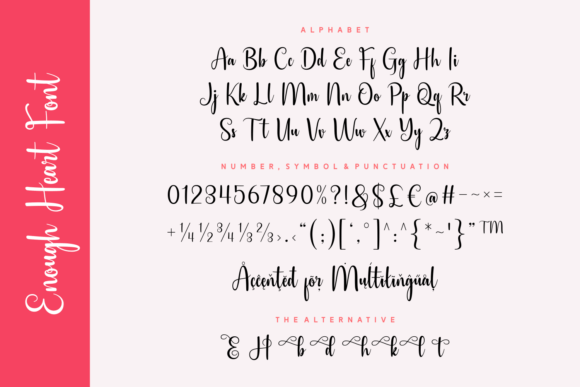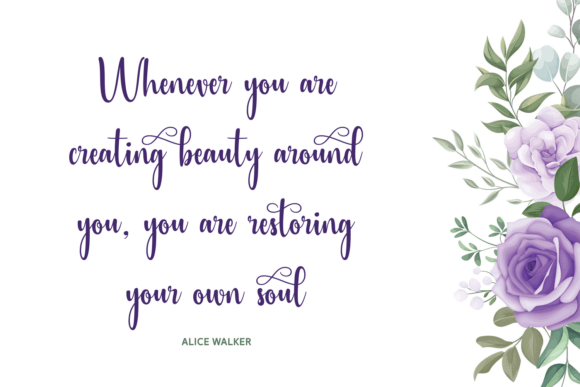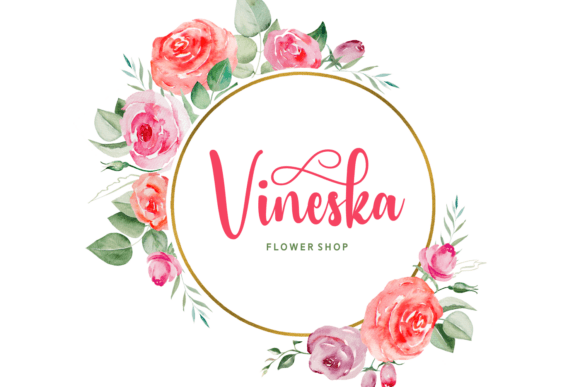
Introducing Enough Heart Font: The Epitome of Elegance and Romance
In the world of typography, few fonts capture the essence of romance and elegance as beautifully as the Enough Heart font. This modern script font is a masterpiece of design, boasting stunning swashes and flowing curves that evoke a sense of sophistication and charm. Whether you’re a designer, crafty DIY enthusiast, or simply someone who appreciates the art of beautiful typography, Enough Heart is sure to captivate your heart.
The Perfect Font for Wedding Designs and Invitations
When it comes to wedding designs, invitations, and other romantic-themed projects, the font you choose can make all the difference. You want something that exudes love, elegance, and refinement. Enough Heart font fits the bill perfectly. Its delicate yet assertive strokes, combined with its beautiful swashes, create a visually stunning effect that’s sure to leave a lasting impression. Whether you’re designing wedding stationery, creating a romantic logo, or crafting a heartfelt greeting card, Enough Heart is the perfect choice.
A Versatile and Graceful Design
One of the standout features of Enough Heart font is its versatility. Its elegant design makes it suitable for a wide range of projects, from branding and advertising to packaging and digital media. The font’s flowing curves and swashes add a touch of femininity and sophistication, making it perfect for projects that demand a high level of refinement. Whether you’re working on a luxury brand campaign or a personal craft project, Enough Heart is sure to bring a level of elegance and poise that’s hard to match.
Key Features of Enough Heart Font
- Modern script font: Enough Heart boasts a fresh and contemporary design that’s perfect for modern designs.
- Romantic and elegant style: The font’s flowing curves and swashes evoke a sense of romance and sophistication.
- Stunning swashes: The font’s beautiful swashes add a touch of drama and elegance to any design.
- Perfect for wedding designs and invitations: Enough Heart is ideal for wedding stationery, invitations, and other romantic-themed projects.
- Versatile and flexible: The font can be used for a wide range of projects, from branding and advertising to packaging and digital media.
Tips for Using Enough Heart Font
To get the most out of Enough Heart font, here are a few tips to keep in mind:
- Use it sparingly: Due to its elegant and refined design, Enough Heart font is best used sparingly. Use it for headings, titles, or key phrases to create a lasting impression.
- Experiment with swashes: The font’s swashes are a key feature, so don’t be afraid to experiment with different combinations to create a unique look.
- Pair it with contrasting fonts: Enough Heart pairs well with contrasting fonts, such as bold sans-serifs or elegant serifs. Experiment with different pairings to find the perfect combination.
In conclusion, Enough Heart font is a true gem in the world of typography. Its modern script design, romantic and elegant style, and stunning swashes make it perfect for wedding designs, invitations, branding, and greeting cards. With its versatile and flexible design, Enough Heart is sure to become a go-to font for designers and crafters who demand a touch of elegance and sophistication in their projects. So why wait? Give Enough Heart font a try today and experience the beauty of refined typography for yourself.